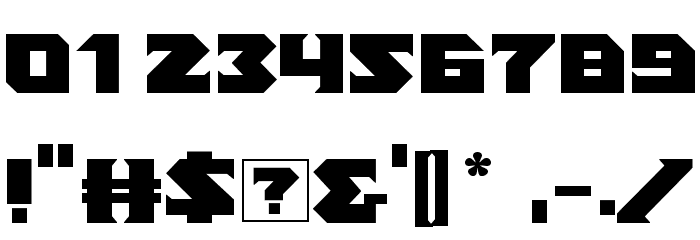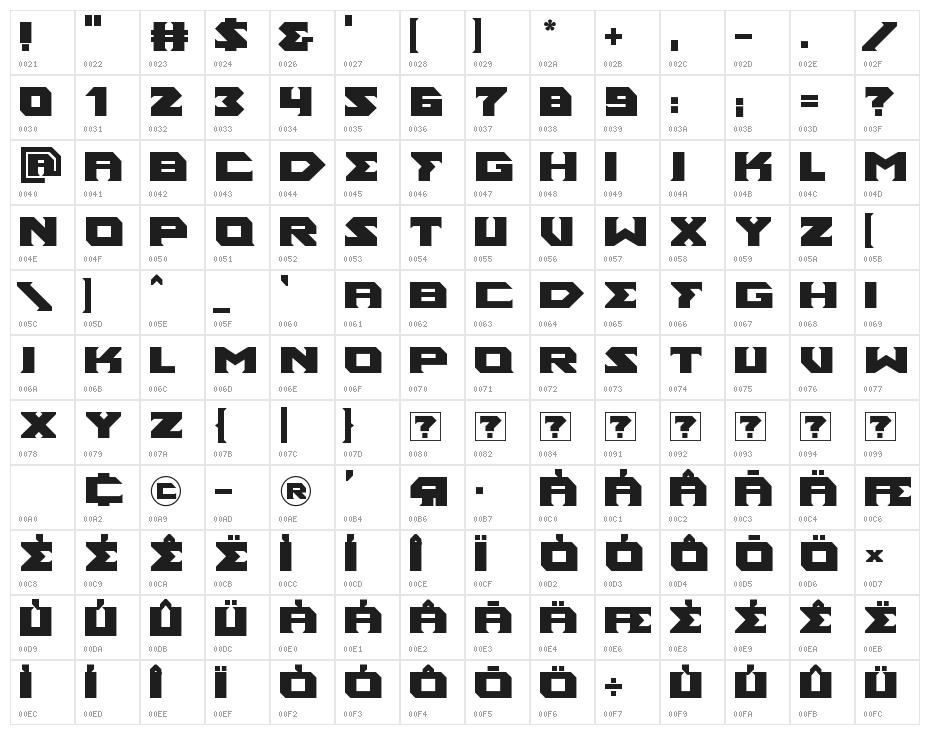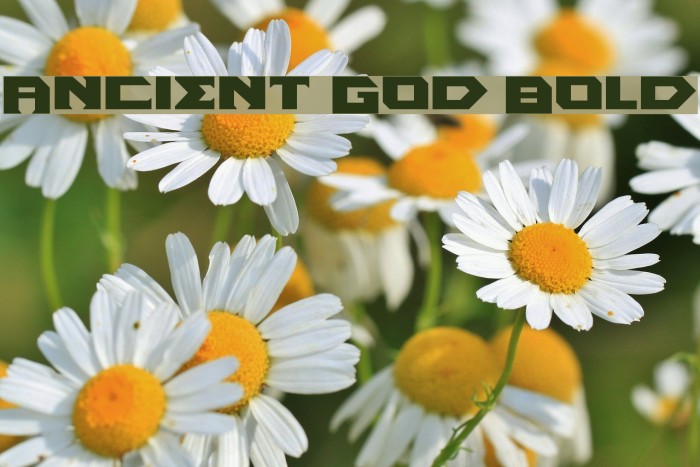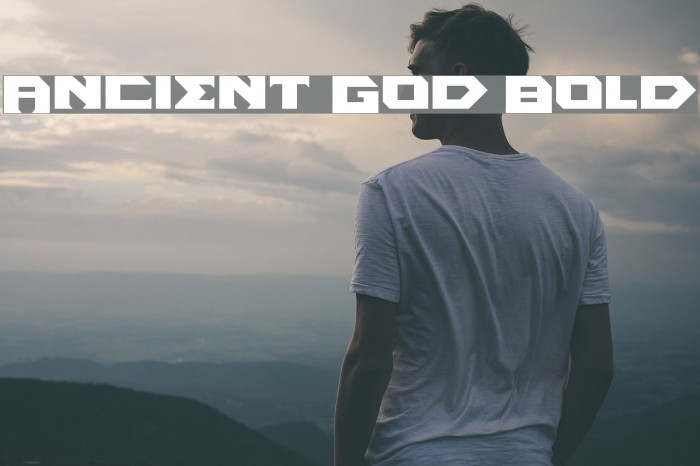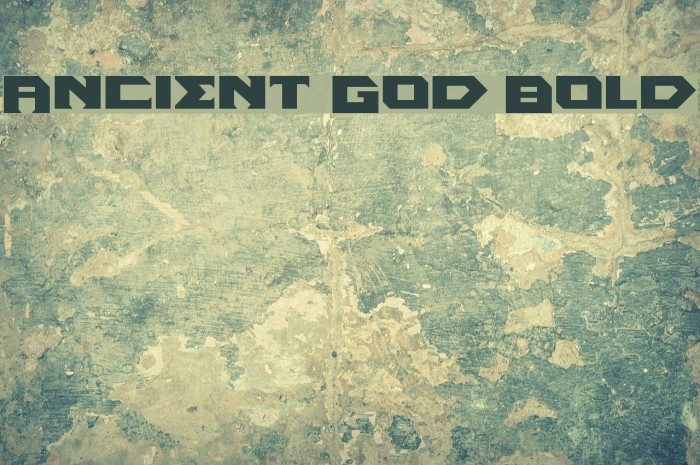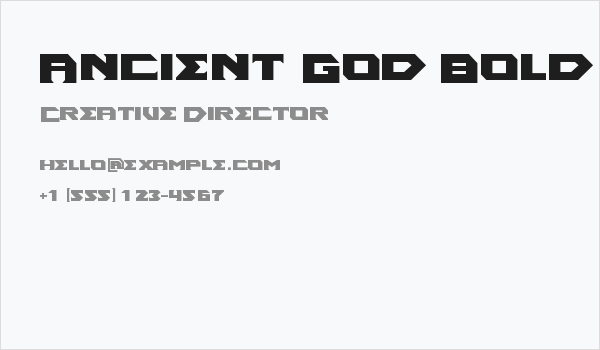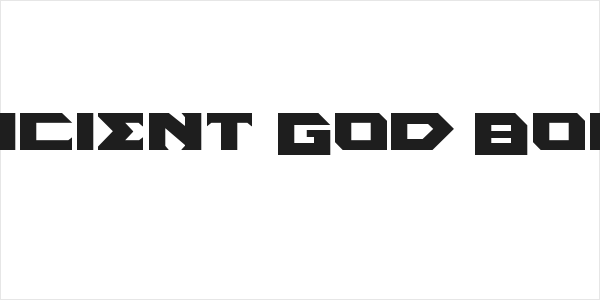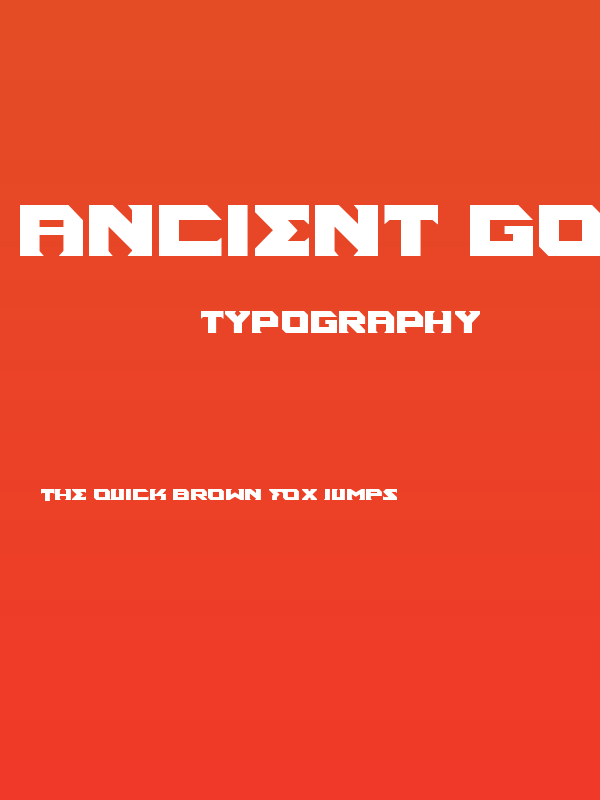
Ancient God Bold Font
Ancient God Bold Description
This font features a bold and geometric design, characterized by sharp angles and a blocky appearance. The uppercase and lowercase letters maintain a consistent style, with a strong emphasis on symmetry and uniformity. The numbers and special characters follow the same design principles, ensuring a cohesive look across all glyphs. The font's unique style is reminiscent of ancient or futuristic themes, making it suitable for projects that require a distinctive and striking visual impact.
| Overall Style | Futuristic, Decorative |
| Proposed Projects | Ideal for video game titles, movie posters, branding for tech companies, or any project needing a bold, futuristic aesthetic. |